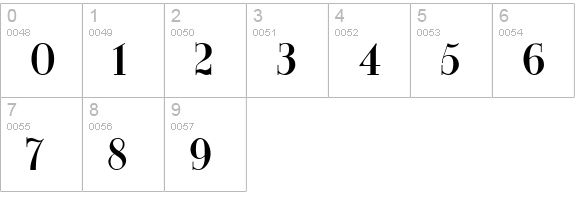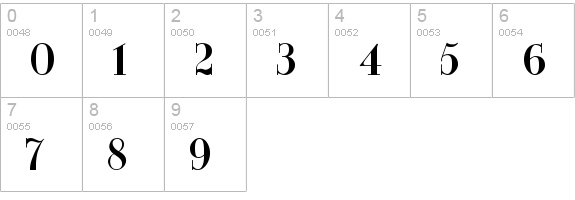
Yankee Normal is the standard, neutral variant in the Yankee typeface family \xE2\x80\x94 well suited to general body text, paragraphs, and standard typographic work.
Yankee Normal is a versatile and elegant font that exudes a classic and timeless appeal. Its clean lines and balanced proportions make it perfect for a wide range of design projects, from branding to editorial work. The font strikes a harmonious balance between modernity and tradition, making it a go-to choice for designers looking for a reliable and sophisticated typeface. One of the best things about Yankee Normal is that it is available for free download at FontsMarket.com. This means that you can easily access this high-quality font without any cost, allowing you to enhance your designs without breaking the bank. Whether you are a seasoned professional or just starting out in the world of design, Yankee Normal offers a valuable resource that you can use to elevate your projects and make a lasting impression. Download Yankee Normal for free today at FontsMarket.com and see for yourself the impact that this exceptional font can have on your creative endeavors.